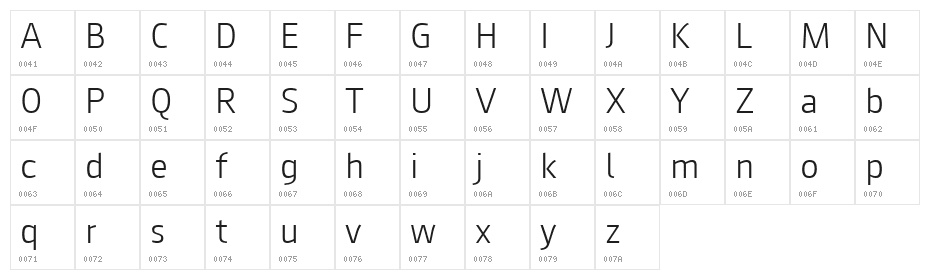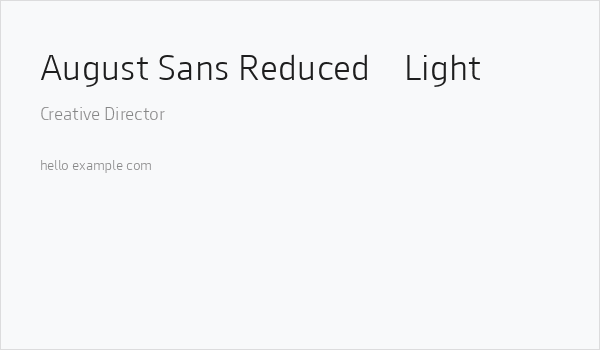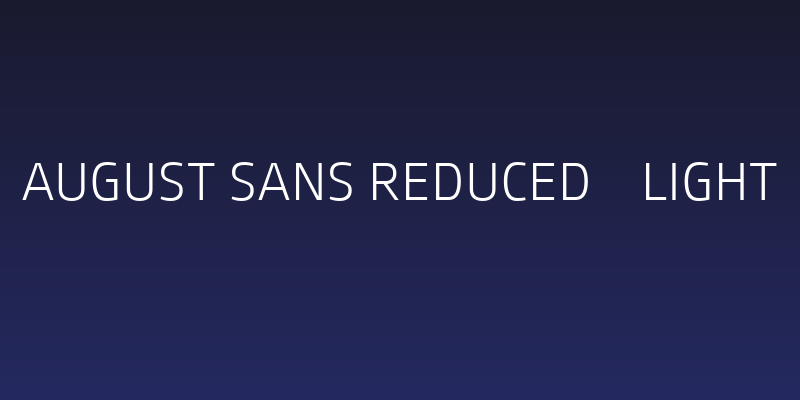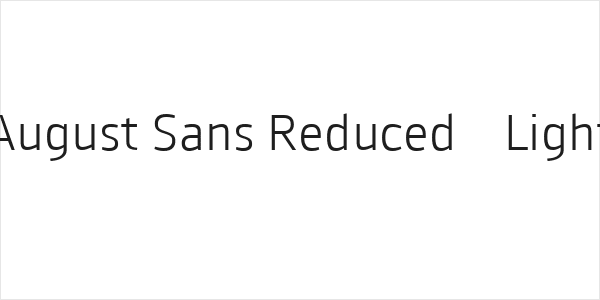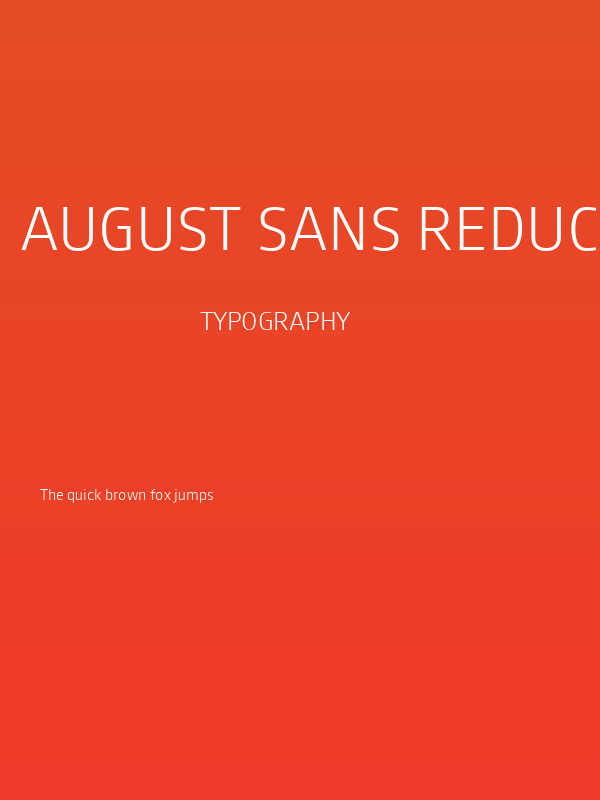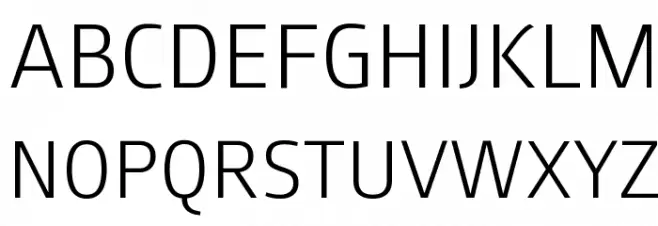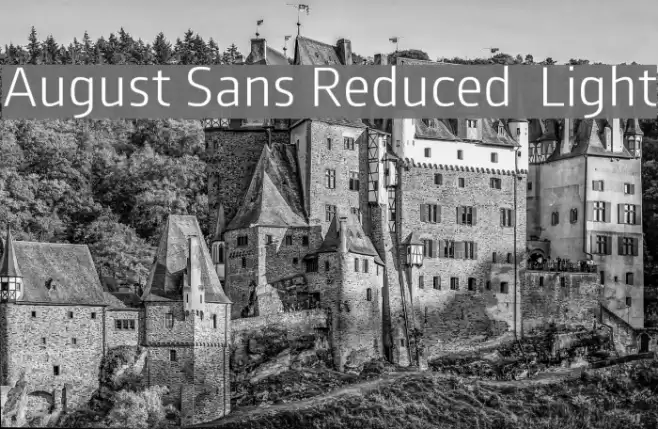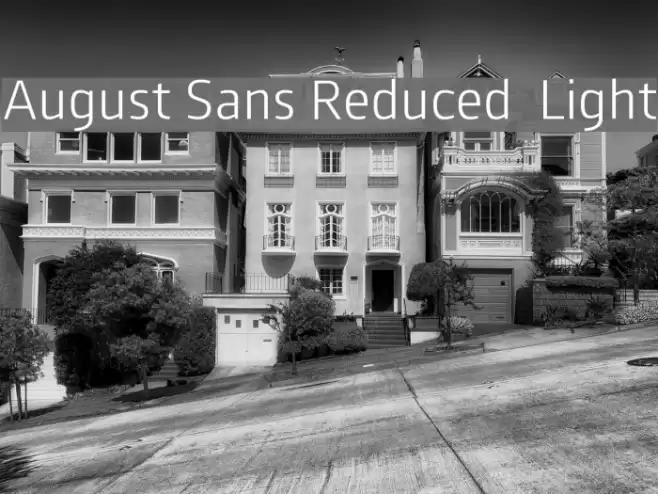
August Sans Reduced 45 Light Font
This typeface exhibits a clean and modern sans-serif design, characterized by its light weight and minimalistic appearance. The characters are well-proportioned with a consistent stroke width, contributing to its readability and versatility. The uppercase and lowercase letters maintain a harmonious balance, with rounded edges that soften the overall look. The numerals and special characters are designed to complement the alphabet, ensuring a cohesive visual experience. This font's simplicity and elegance make it suitable for a wide range of applications, from digital interfaces to print media.
| Proposed Projects | Ideal for web design, corporate branding, editorial layouts, and user interfaces. |